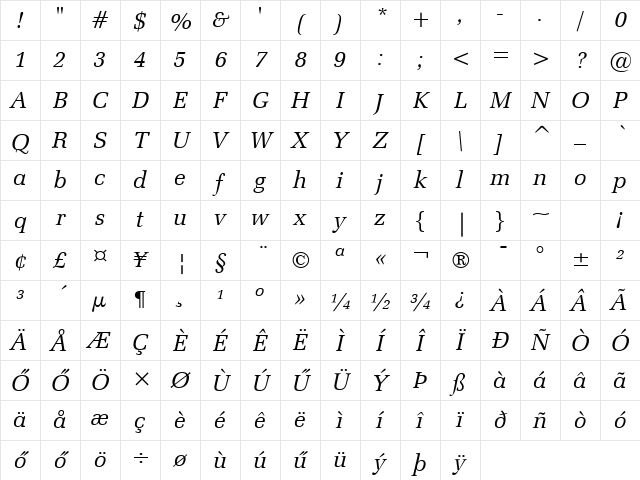
Zapf-Elliptical711 HU is a composed and adaptable typeface that performs quietly and consistently across a wide range of design contexts. The slanted form adds forward momentum and visual energy.
Pro Tip: Use Zapf-Elliptical711 HU for emphasis, pull quotes, and subheadings where its slanted energy can add rhythm to the layout.